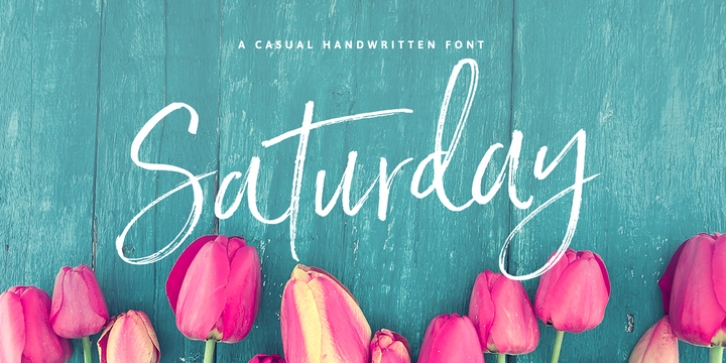
Saturday Script was designed by Nicky Laatz and published by Nicky Laatz . Saturday Script contains 2 styles and family package options.
Say hello to Saturday Script! A a care-free, casual, handwritten script with authentic tell-tale dry brush imperfections.
Saturday Script has the added bonus of having 'multiple personalities'! Saturday Script has 2 sets of lowercase stylistic sets, allowing you to make each word look completely unique to the next. Whether you need 'flaunty & loud' or 'soft & romantic' Saturday Script has the look for you.
There are 2 variants of Saturday Script, to add even more flexibility to your designs: Regular, and Oblique